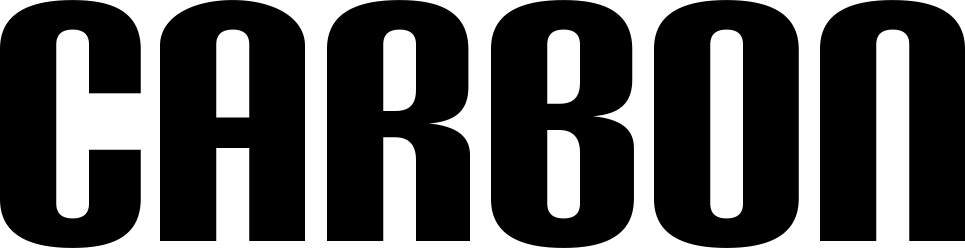
To design the main page of a website or design internet banner ads, you need to use visually appealing fonts. Carbon is a techno font that does not support lowercase letters. All Carbon characters are designed in two different styles and have an acceptable variety in this regard. This font conveys a sense of excitement to the audience and attracts attention in the shortest time.
Carbon was originally created in 1999 and was overhauled a decade later. Alternate letters such as the unicase T of the original are still available as OpenType stylistic alternates. Some of the numerals and most of the punctuation has been redesigned. Accents cover more languages. Along with new weights and italics, there’s Carbon Fence with a 1960s style choppy wire fence effect. Carbon includes fractions & numeric ordinals. These fonts include a license that allows free commercial use: sometimes referred to as a desktop license. This allows you to install the fonts on a computer and use them to create posters, web graphics, game graphics, t-shirts, videos, signs, logos and more. Read the license agreement for details. If you’d like to embed these fonts in an app, on the web or anything that’s not covered by the desktop license agreement, visit the link below. You’ll find distributors who offer different types of licenses, or you can contact me for help.